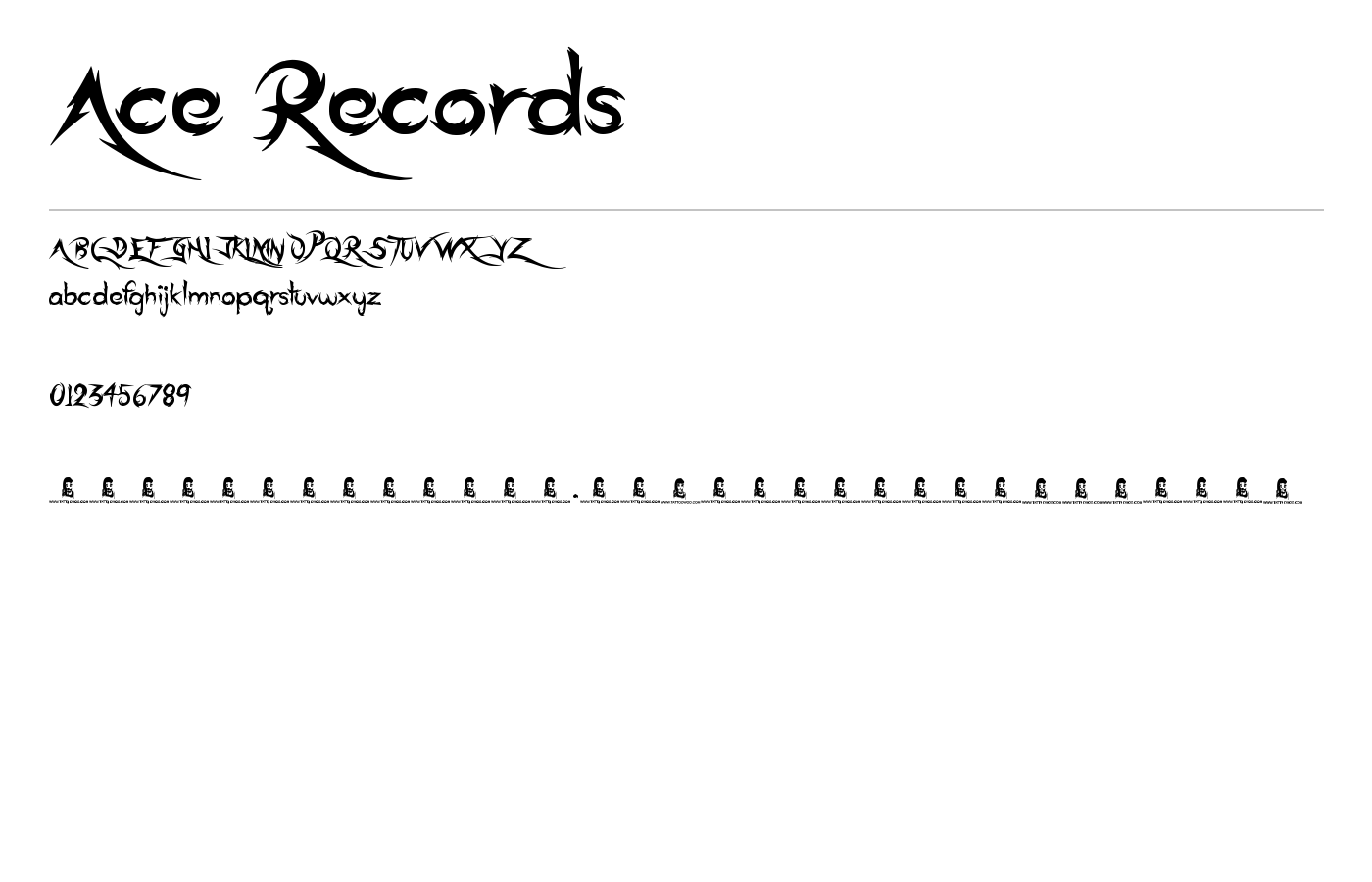
Ace Records is a highly stylized decorative display font with sharp, angular strokes and an edgy, dynamic feel reminiscent of tribal or fantasy lettering. Its dramatic, ornate letterforms and irregular shapes make it ideal for bold, attention-grabbing titles and branding that seeks to convey energy and uniqueness, though it is best used sparingly due to its intricate design. This font suits music-related logos, posters, and creative projects where a distinctive, rebellious personality is desired.
Ace Records Font
About Ace Records Font